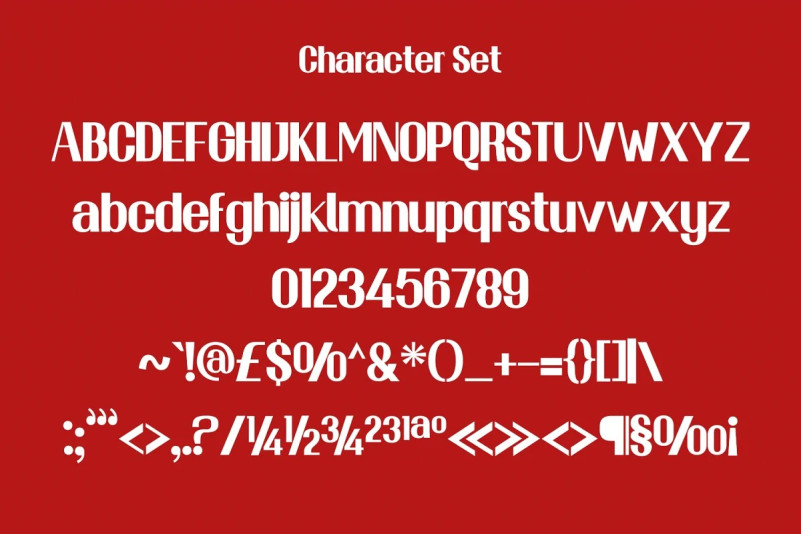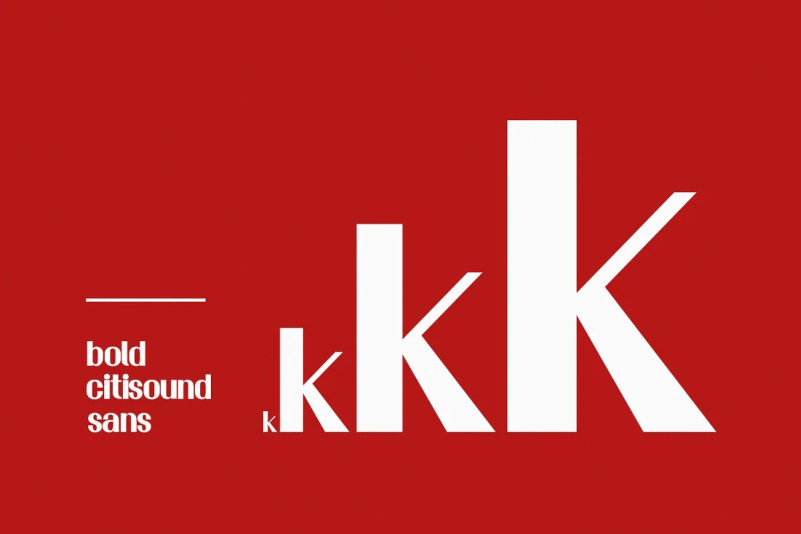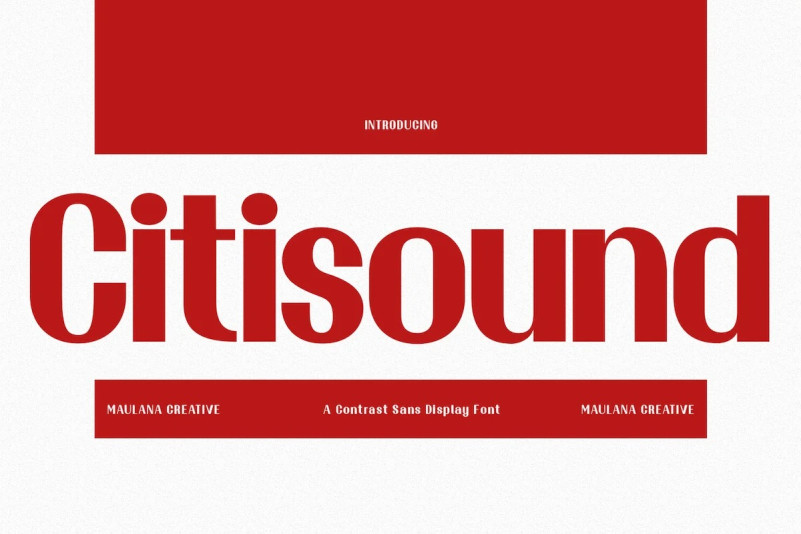
Citisound Font
Citisound Sans Serif Font is a classic contrast sans serif font. With medium low contrast stroke, fun character with a bit of ligatures and alternates. To give you an extra creative work. Citisound font support multilingual more than 100+ language. This font is good for logo design, Social media, Movie Titles, Books Titles, a short text even a long text letter and good for your secondary text font with sans or serif. Make a stunning work with Citisound font.